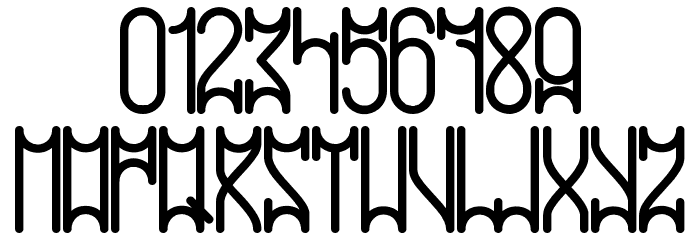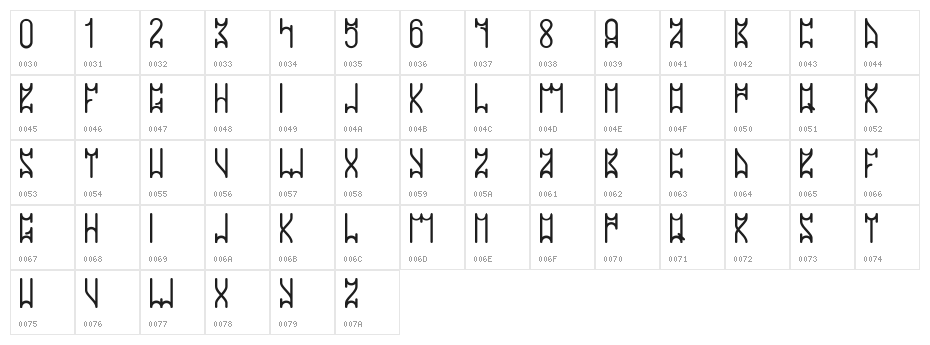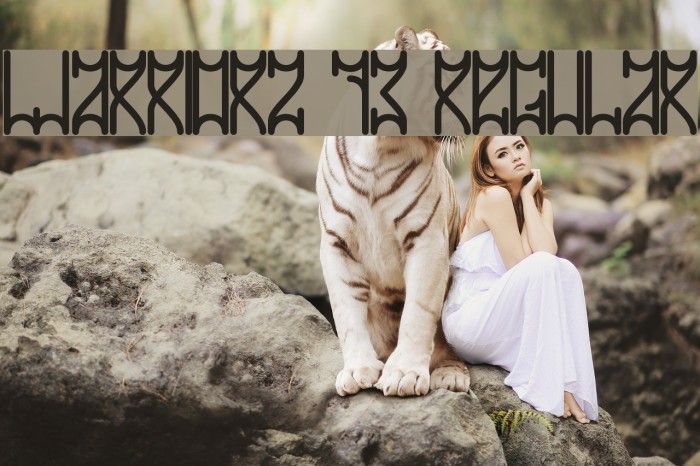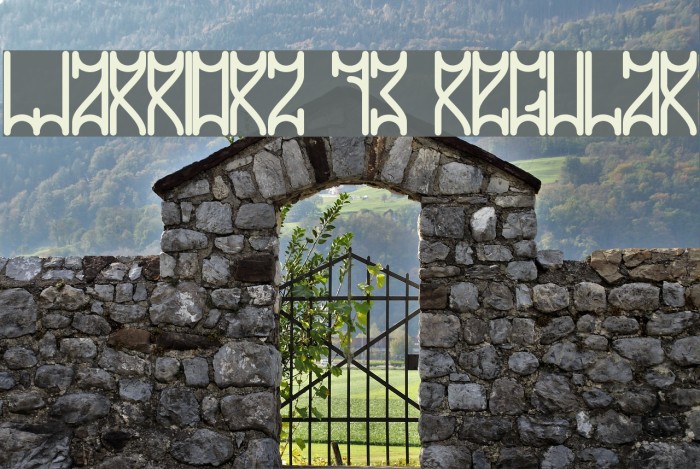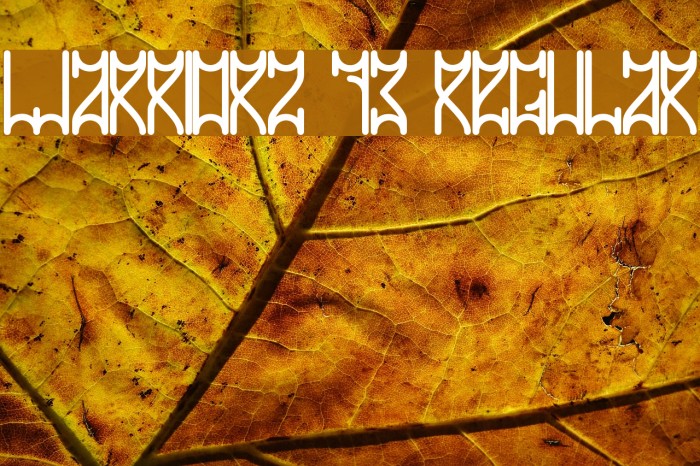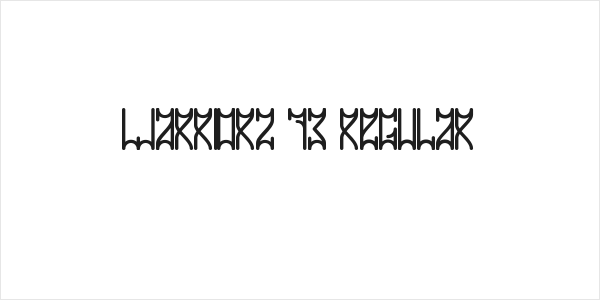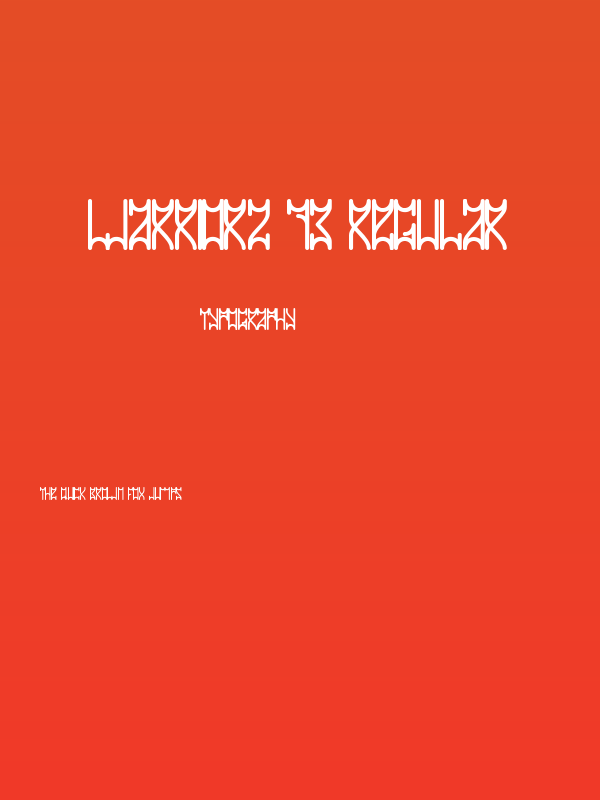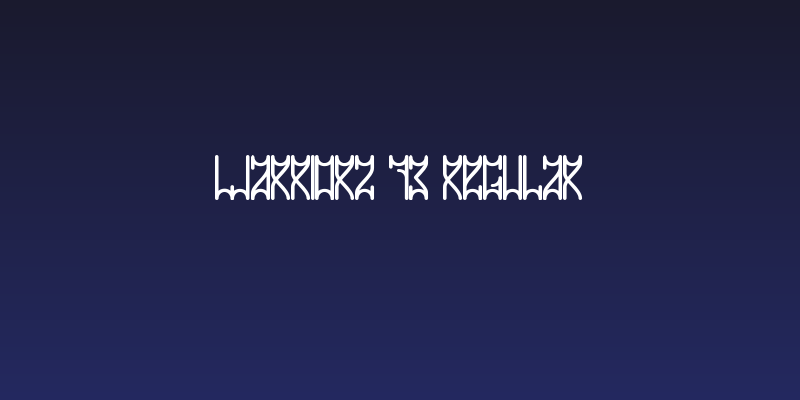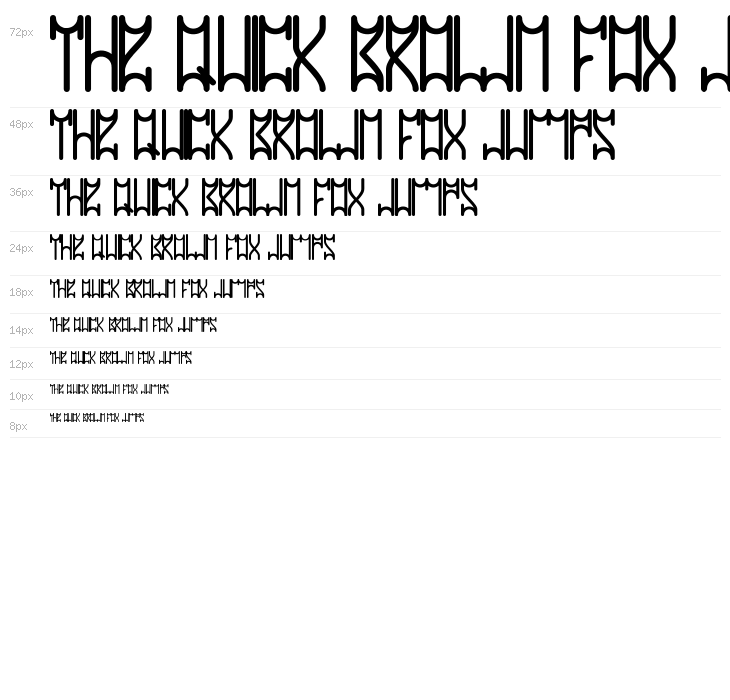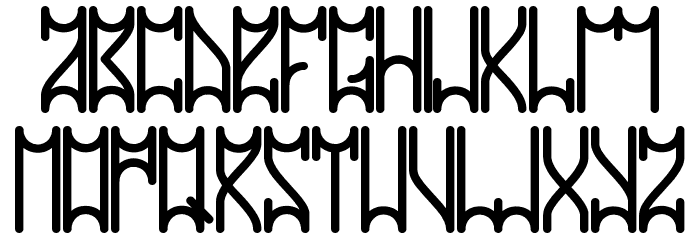
WARRIORZ 73 Regular Font
WARRIORZ 73 Regular Description
This font features a bold and striking design with a unique, geometric style. The characters are tall and narrow, with sharp angles and a consistent stroke width that gives it a modern and futuristic appearance. The uppercase and lowercase letters maintain a uniform height, creating a cohesive look across the alphabet. The numbers and special characters follow the same design principles, ensuring a seamless integration with the rest of the font. The overall aesthetic is both decorative and functional, making it suitable for a variety of creative projects.